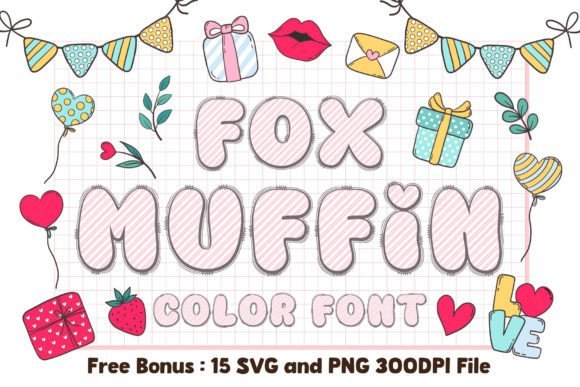
Fox Muffin is a cute and fun color font.
This font is your go-to for crafting cute greeting cards that express affection and warmth Whether you’re a designer, a social media influencer, or someone with a penchant for creative expression.
Fox Muffin Font offers exceptional quality and versatility, making it a valuable addition to your design toolkit. Whether you’re creating for personal projects or commercial use, Fox Muffin Font delivers professional results.